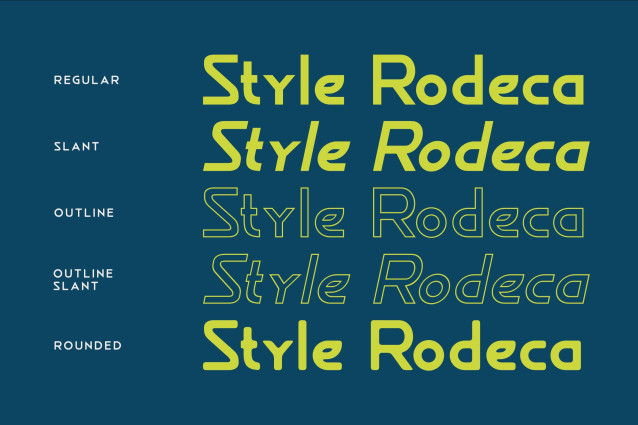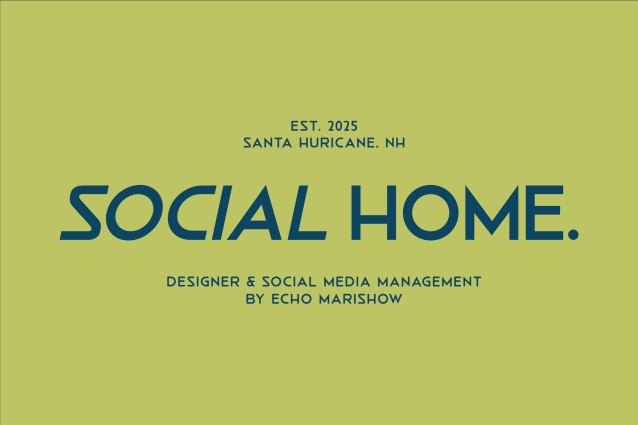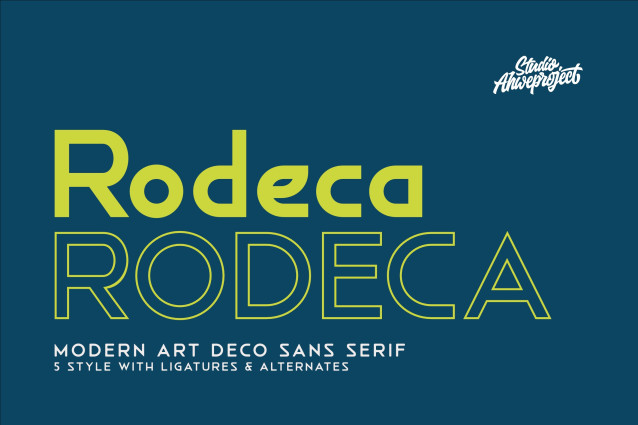
Rodeca Font
Rodeca Font, a modern sans serif typeface that blends classic geometric shapes with sleek, contemporary flair. With 5 unique styles, ligatures, and alternates, Rodeca offers versatility for any design need—whether you’re working on branding, editorial layouts, posters, logos, or luxury packaging.
This font is designed for creatives who seek a strong visual identity. The clean lines and modern minimalist charm make Rodeca perfect for high-impact titles, sophisticated headlines, and modern logos. Its Art Deco inspiration is visible in every curve, delivering a nostalgic feel with a fresh, modern twist.
Whether you need a font for fashion branding, architecture magazines, or digital design projects, Rodeca brings timeless style with modern adaptability. Try it and elevate your visuals with bold elegance!